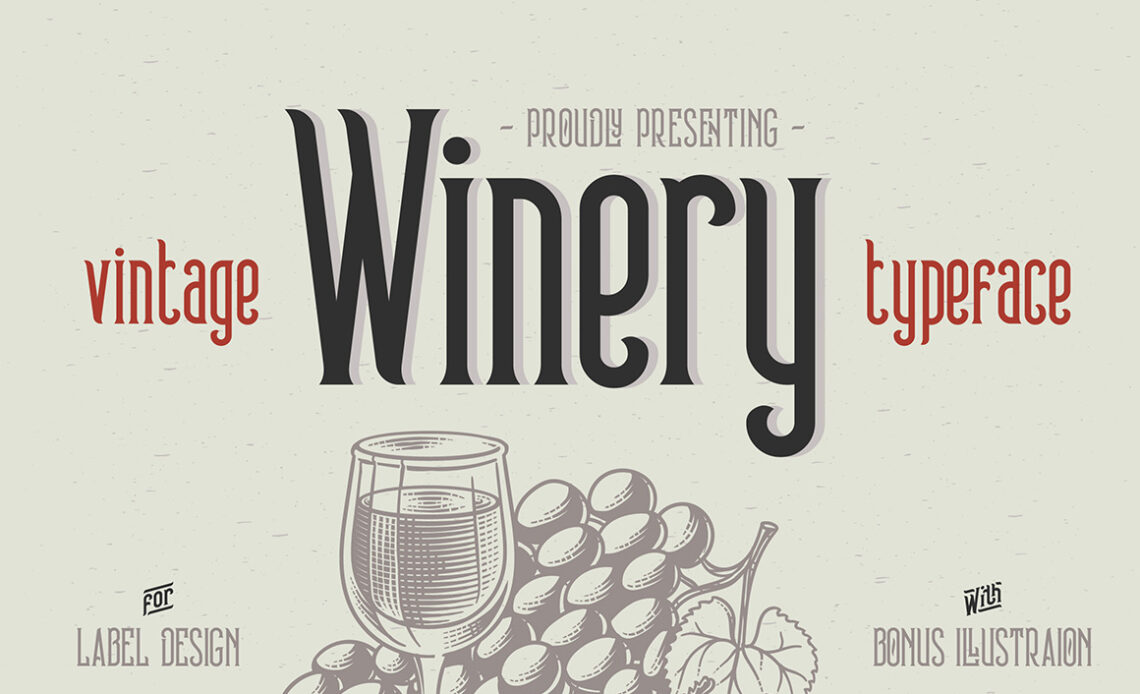
Behold the Winery Font: A Wine-Soaked Delight for Your Design Palate
In the realm of typography, Winery Font reigns supreme, an exquisite display font crafted by the ingenious Gleb Guralnyk. Prepare to be mesmerized as this font unfurls its charm, leaving you spellbound with its elegance and allure.
With Winery Font, you embark on a journey of visual enchantment, where words dance gracefully, exuding timeless sophistication. Its sweeping curves and delicate flourishes evoke the spirit of vintage wine labels, promising to elevate your designs to new heights of grandeur.
Unleash your creativity and let Winery Font ignite your imagination. Its meticulously crafted catchphrases, "The, To, This, Is, Are, And, An, At, Also, By, For, Of, From, Est, What, Where, When & With," provide endless possibilities for creating designs that resonate with your audience.
Picture this: a striking logo that exudes timeless appeal, a captivating social media post that commands attention, or an unforgettable wedding invitation that sets the mood for an enchanting celebration. Winery Font is your trusted companion, transforming your creative visions into tangible masterpieces.
Immerse yourself in the world of Winery Font, where classic elegance meets modern versatility. Let its timeless beauty enhance your designs, leaving an indelible mark on the hearts of your audience. Discover the boundless creative potential that awaits you with this exceptional font.